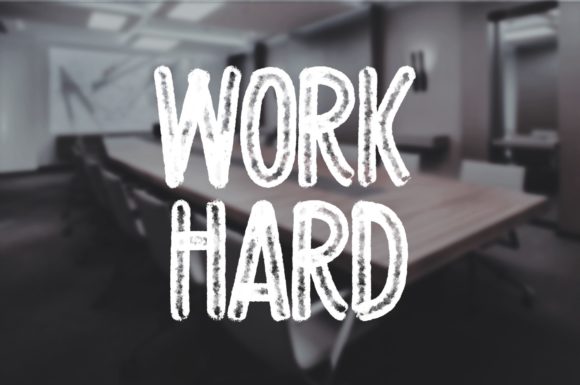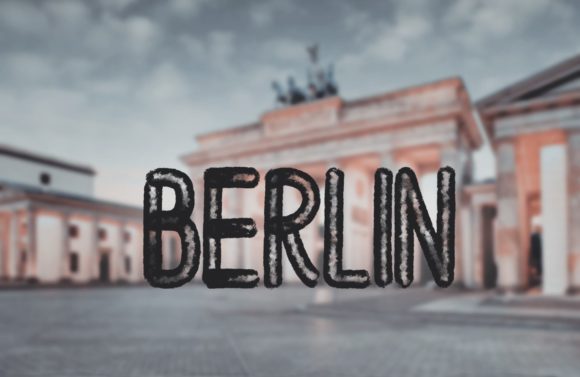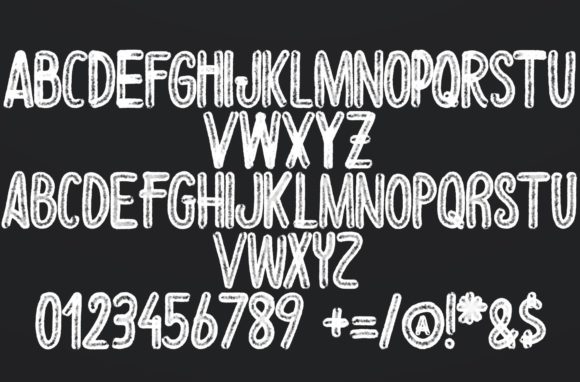
Introducing Gate Font: The Perfect Addition to Your Casual Design Arsenal
Are you tired of using the same old fonts in your designs? Look no further than Gate Font, a simple and brushed display font that’s perfect for adding a touch of casual charm to your projects. With its chunky lettering and natural feel, Gate Font is ideal for a wide range of friendly and approachable designs.
What is Gate Font?
Gate Font is a display font that’s designed to make a statement. Its chunky, brushed letters give it a unique and eye-catching appearance that’s perfect for headlines, titles, and other design elements. The font’s natural feel makes it ideal for designs that require a friendly and approachable tone, such as craft projects, social media graphics, and more.
Key Features of Gate Font
- Simple and Brushed Design: Gate Font features a simple, brushed design that’s perfect for creating eye-catching headlines and titles.
- Chunky Lettering: The font’s chunky lettering gives it a bold and attention-grabbing appearance that’s perfect for making a statement.
- Natural Feel: Gate Font’s natural feel makes it ideal for designs that require a friendly and approachable tone.
- Wide Range of Uses: Gate Font is versatile enough to be used in a wide range of designs, from craft projects to social media graphics and more.
Who is Gate Font for?
Gate Font is perfect for designers and crafters who are looking for a font that can add a touch of casual charm to their projects. Whether you’re working on a craft project, creating social media graphics, or designing marketing materials, Gate Font is a great choice. Its friendly and approachable tone makes it ideal for designs that require a more relaxed and informal feel.
How to Use Gate Font in Your Designs
Using Gate Font in your designs is easy. Here are a few tips to get you started:
- Use it as a Headline Font: Gate Font is perfect for use as a headline font, where its bold and attention-grabbing appearance can really make an impact.
- Pair it with Other Fonts: Gate Font pairs well with a wide range of other fonts, so feel free to experiment with different combinations to find the one that works best for your design.
- Use it in Craft Projects: Gate Font is a great choice for craft projects, such as scrapbooking, card making, and other paper crafts.
- Experiment with Different Colors: Gate Font looks great in a wide range of colors, so don’t be afraid to experiment and find the one that works best for your design.
Benefits of Using Gate Font
There are many benefits to using Gate Font in your designs. Here are a few:
- Unique and Eye-Catching Appearance: Gate Font’s chunky, brushed letters give it a unique and eye-catching appearance that’s perfect for making a statement.
- Versatility: Gate Font is versatile enough to be used in a wide range of designs, from craft projects to social media graphics and more.
- Easy to Read: Despite its bold and chunky appearance, Gate Font is easy to read, making it perfect for use in designs where clarity is important.
Gate Font is a simple and brushed display font that’s perfect for adding a touch of casual charm to your designs. With its chunky lettering and natural feel, it’s ideal for a wide range of friendly and approachable designs. Whether you’re a designer or crafter, Gate Font is a great choice for anyone looking for a font that can help them create eye-catching and effective designs.